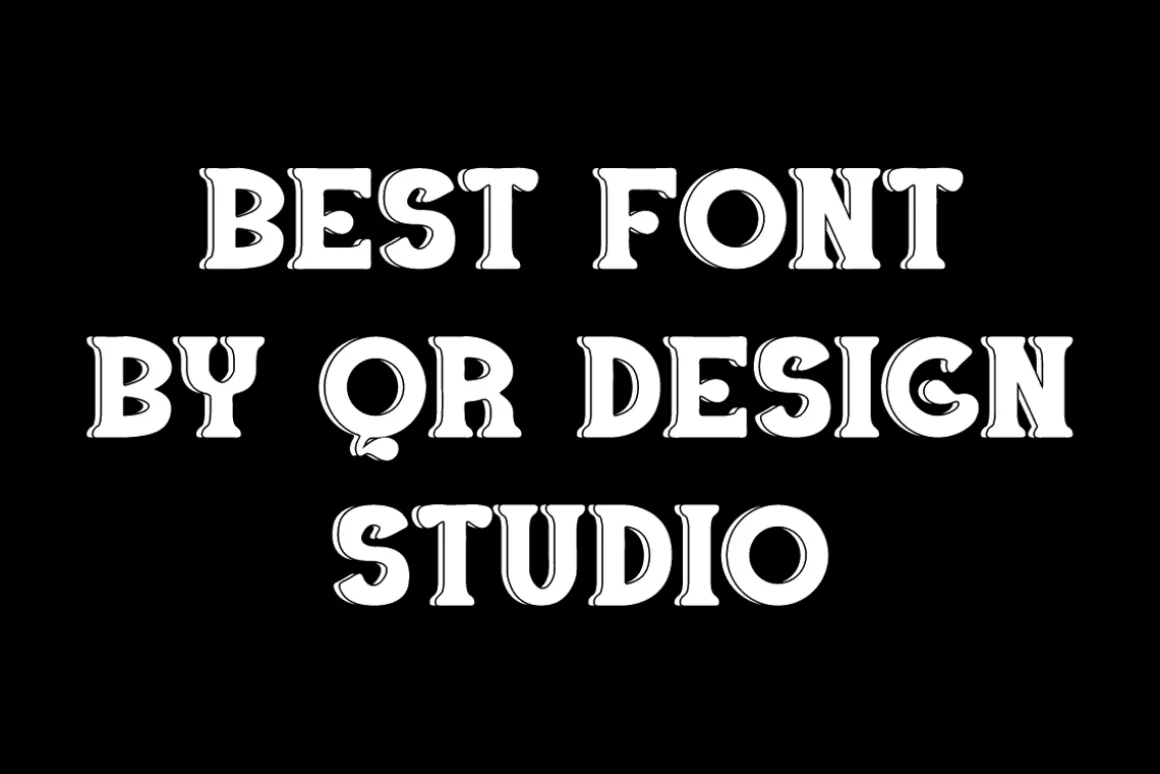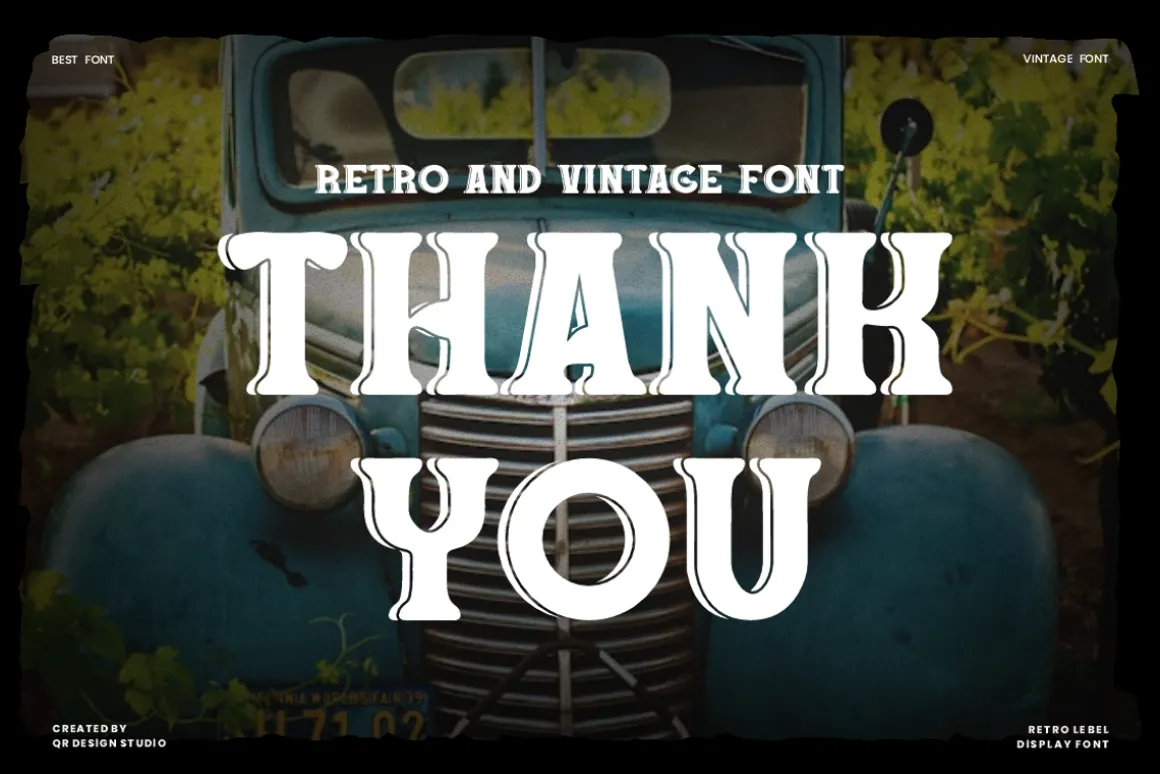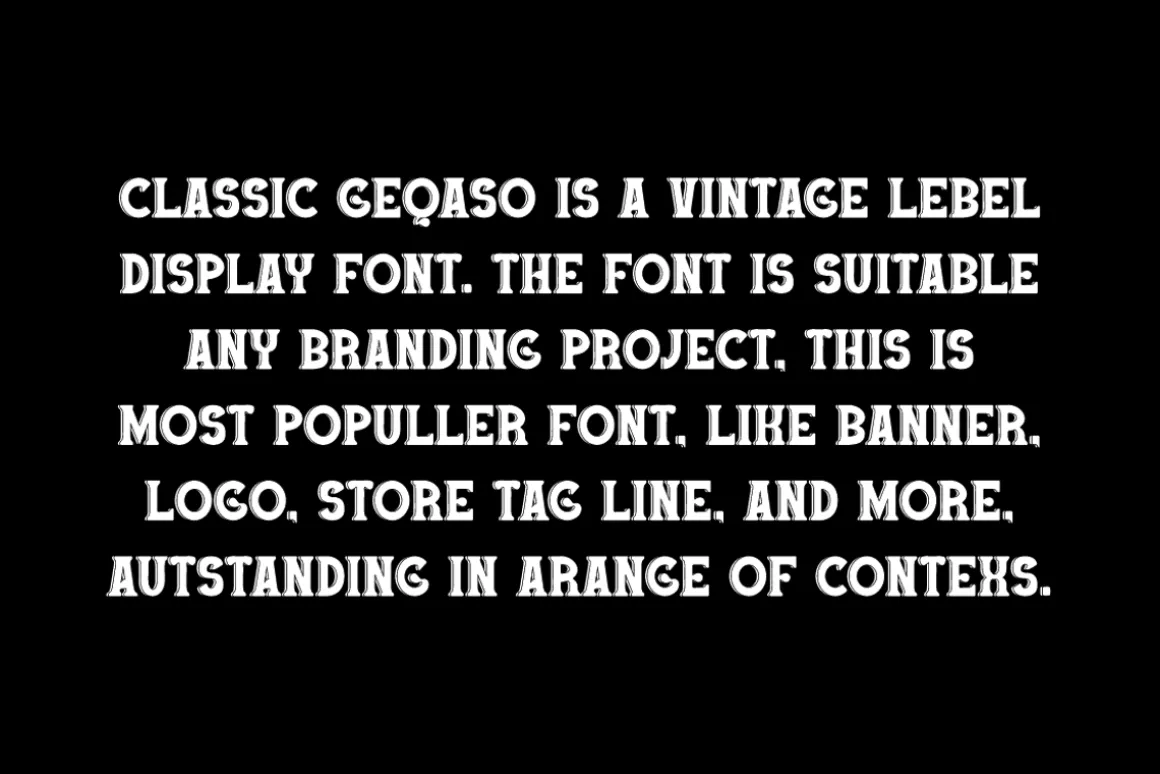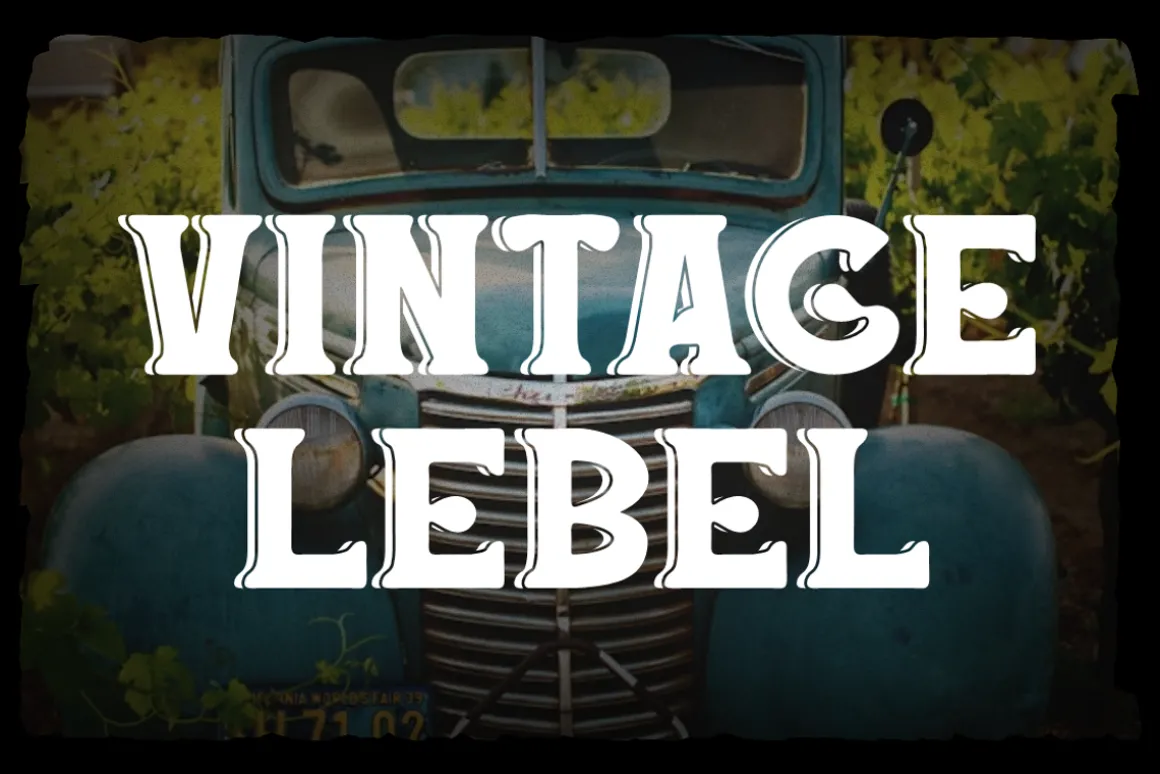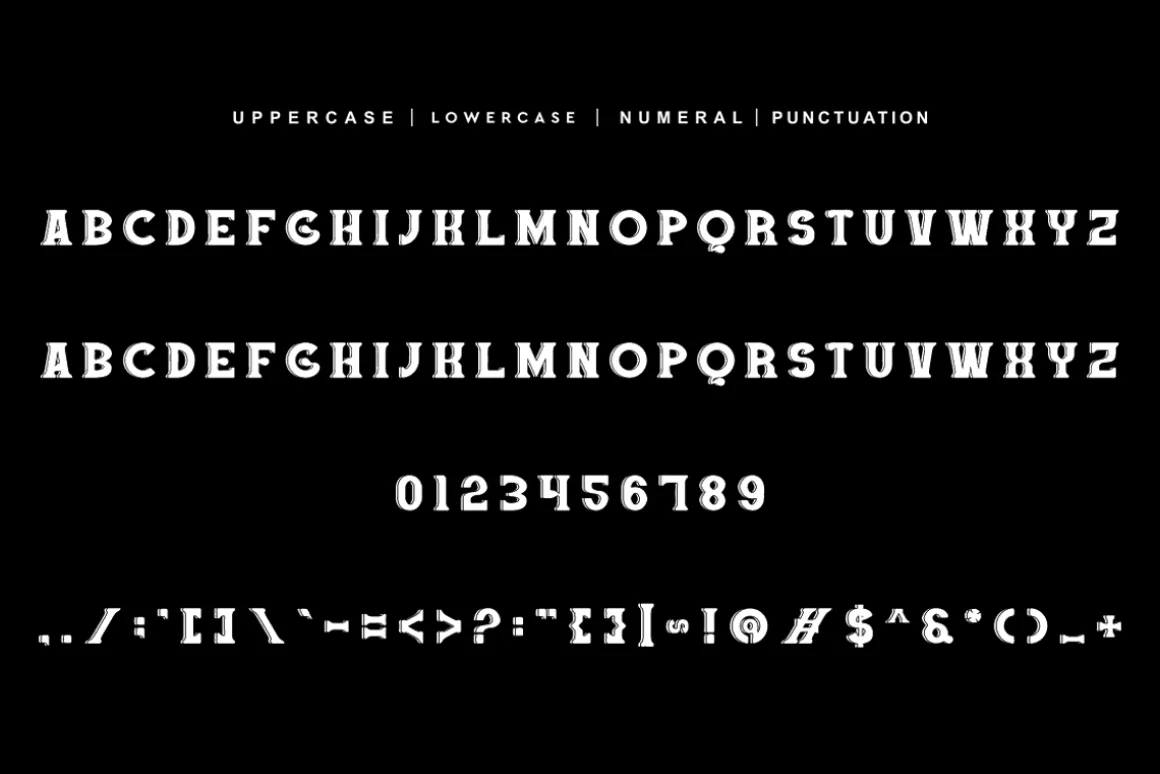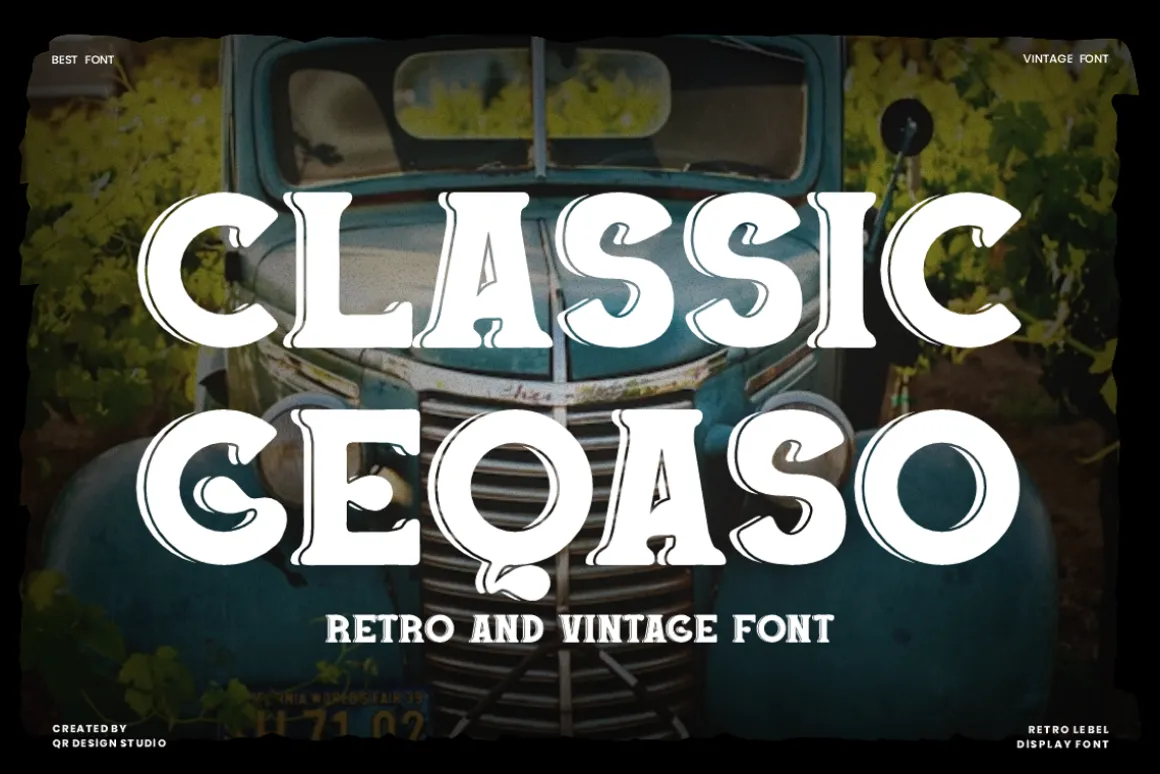
Classic Geqaso Font is a slab serif and authentic display font.The font is suitable for any branding project like poster, logo, sport, and many more.Outstanding in a wide range of contexts.